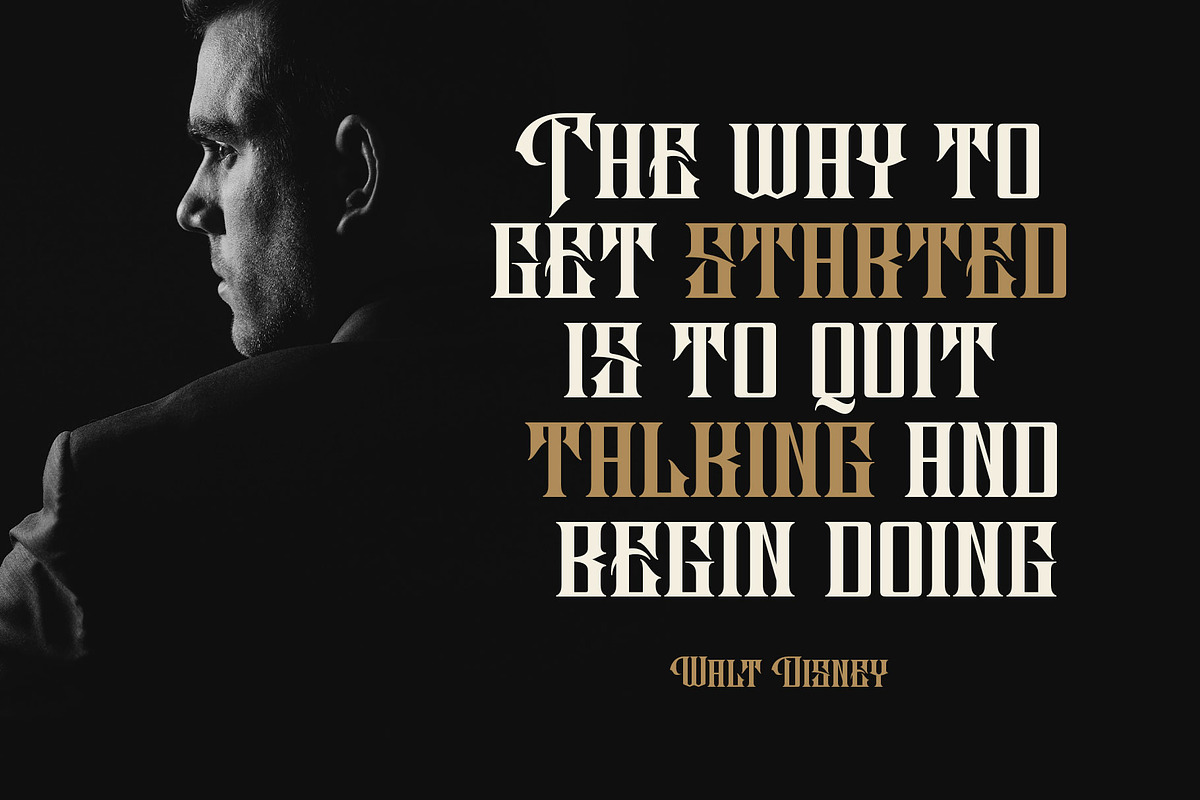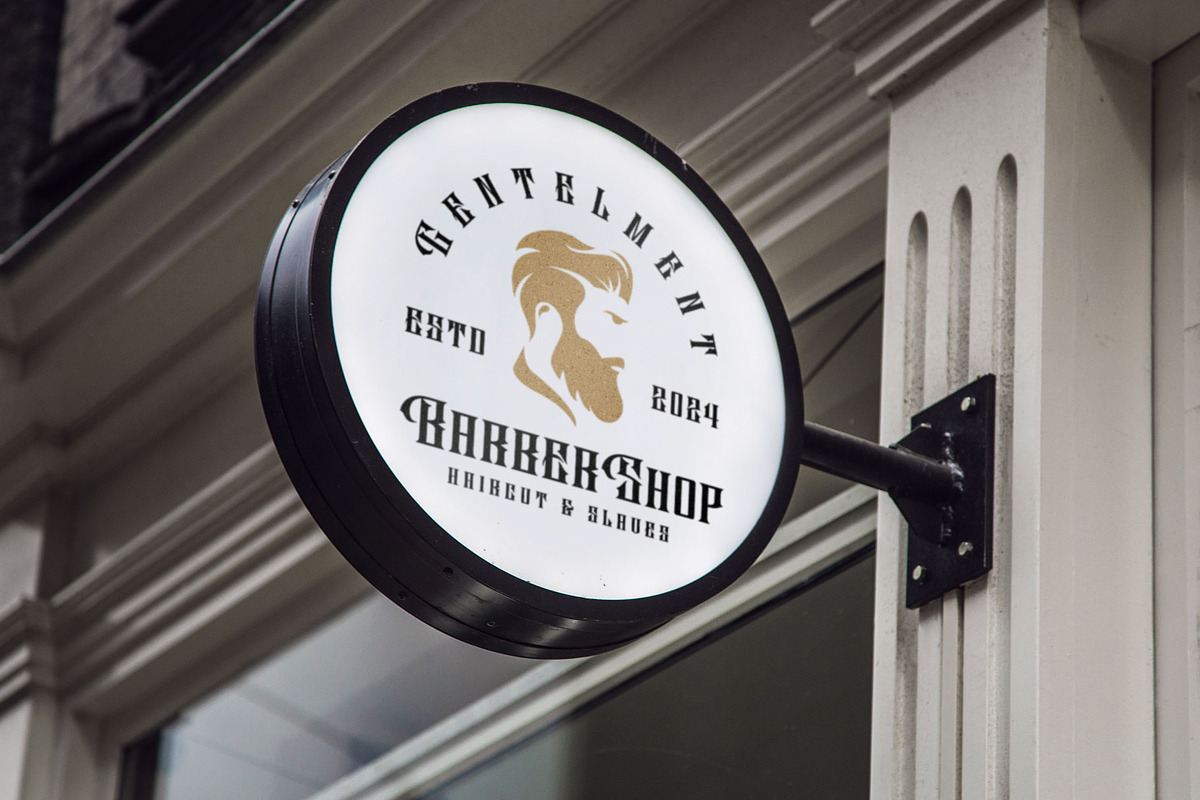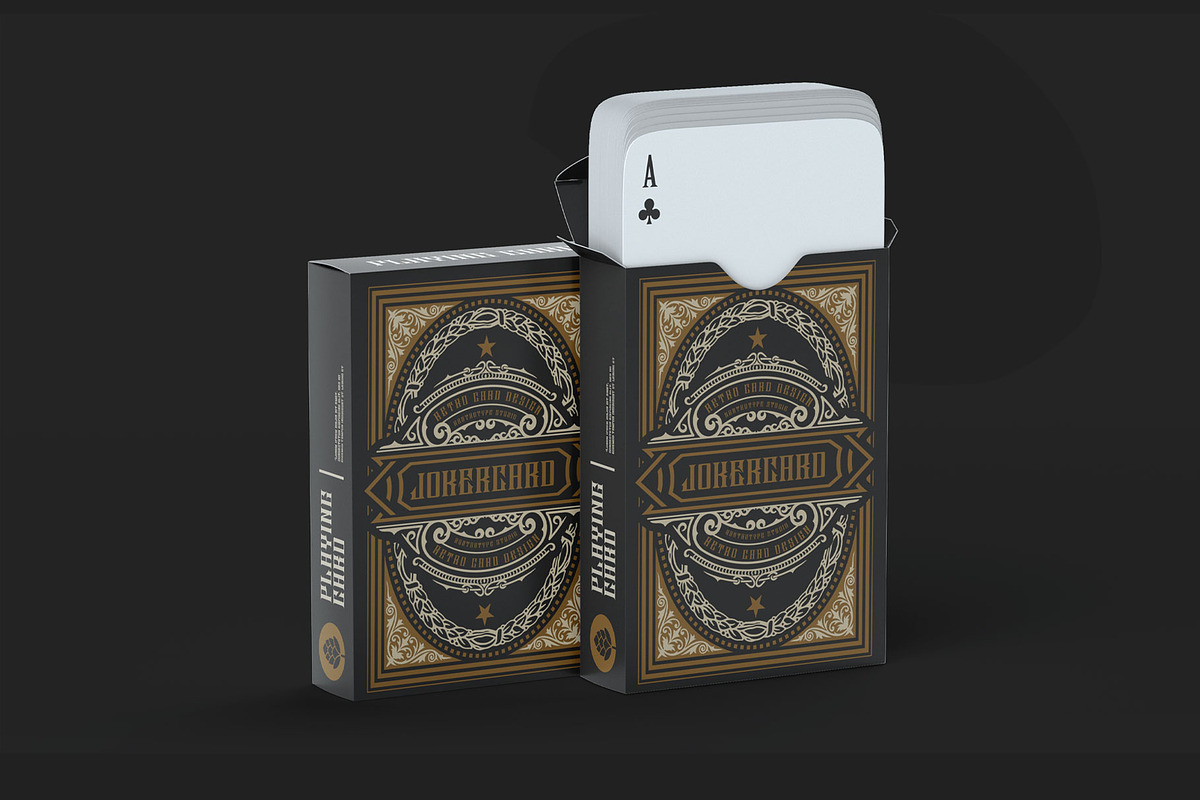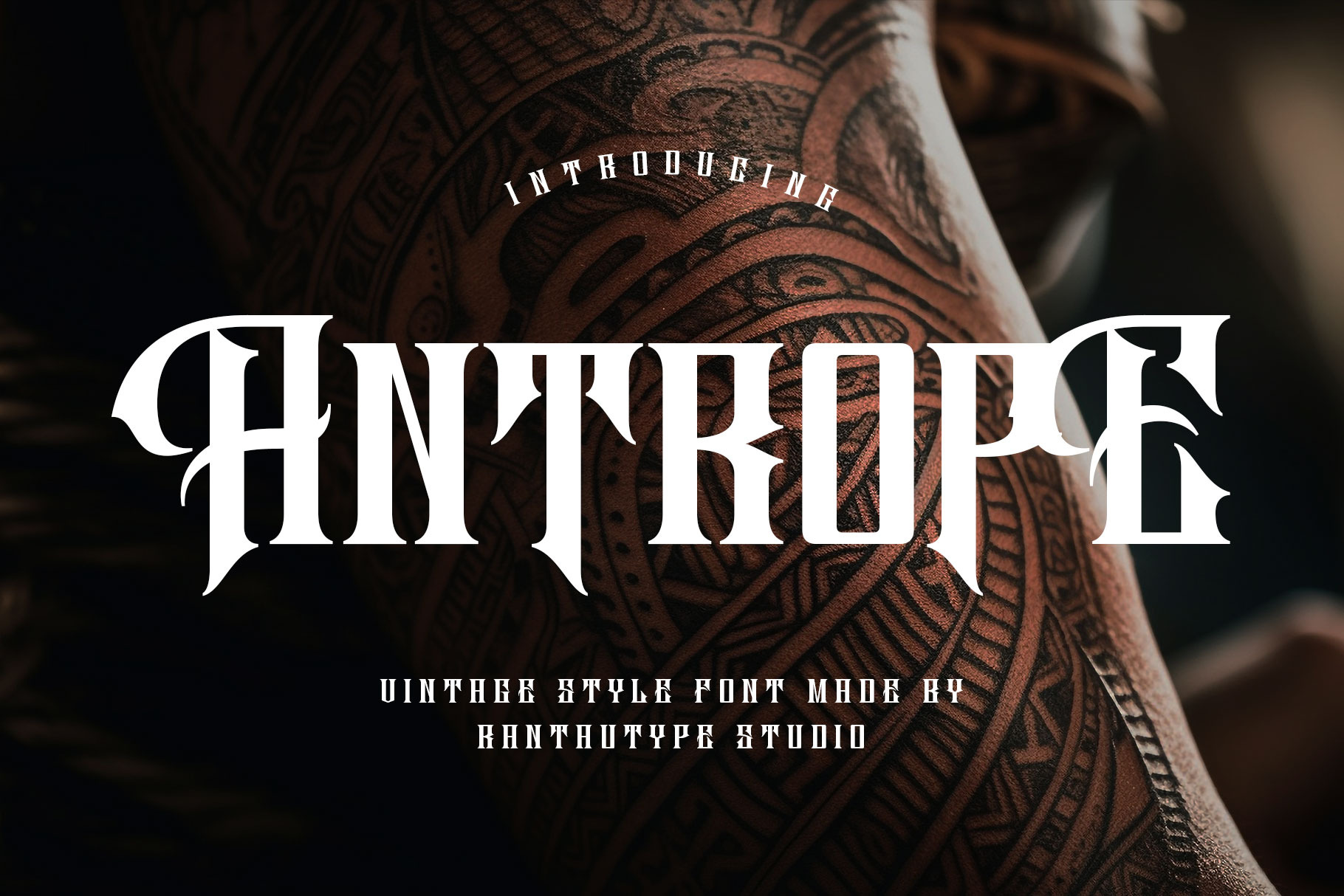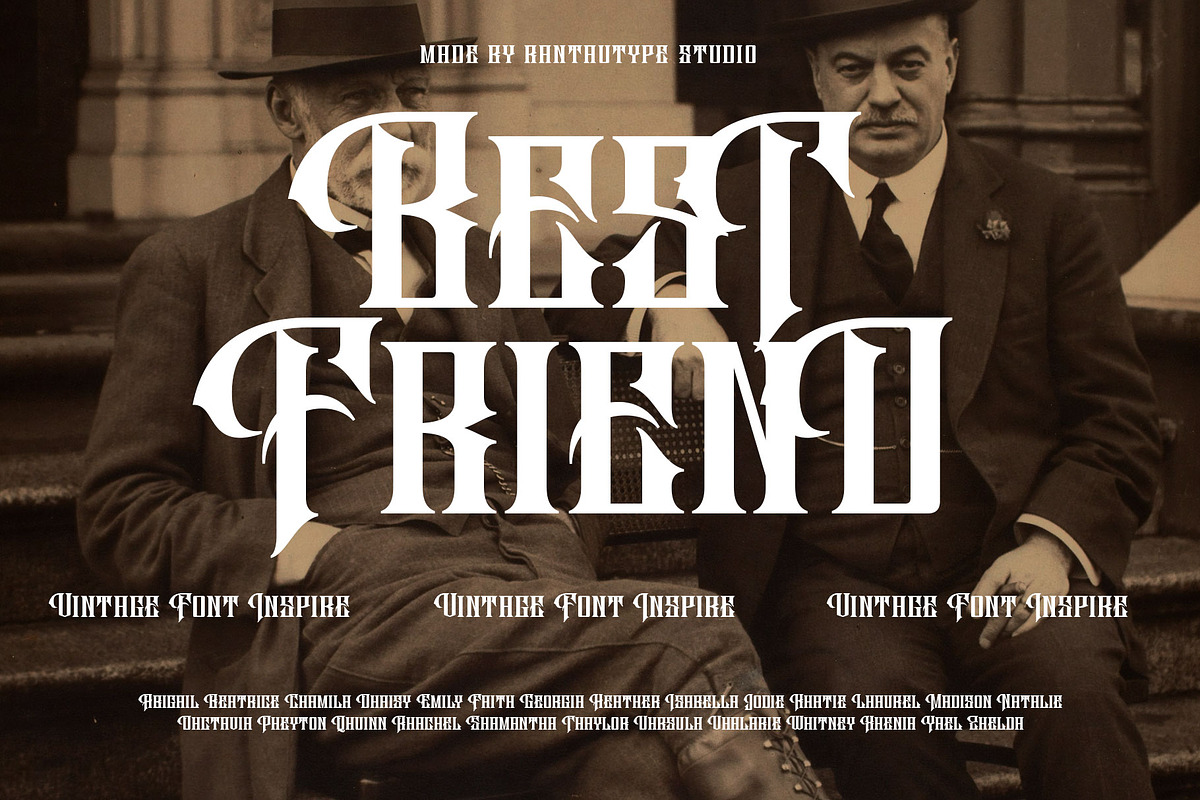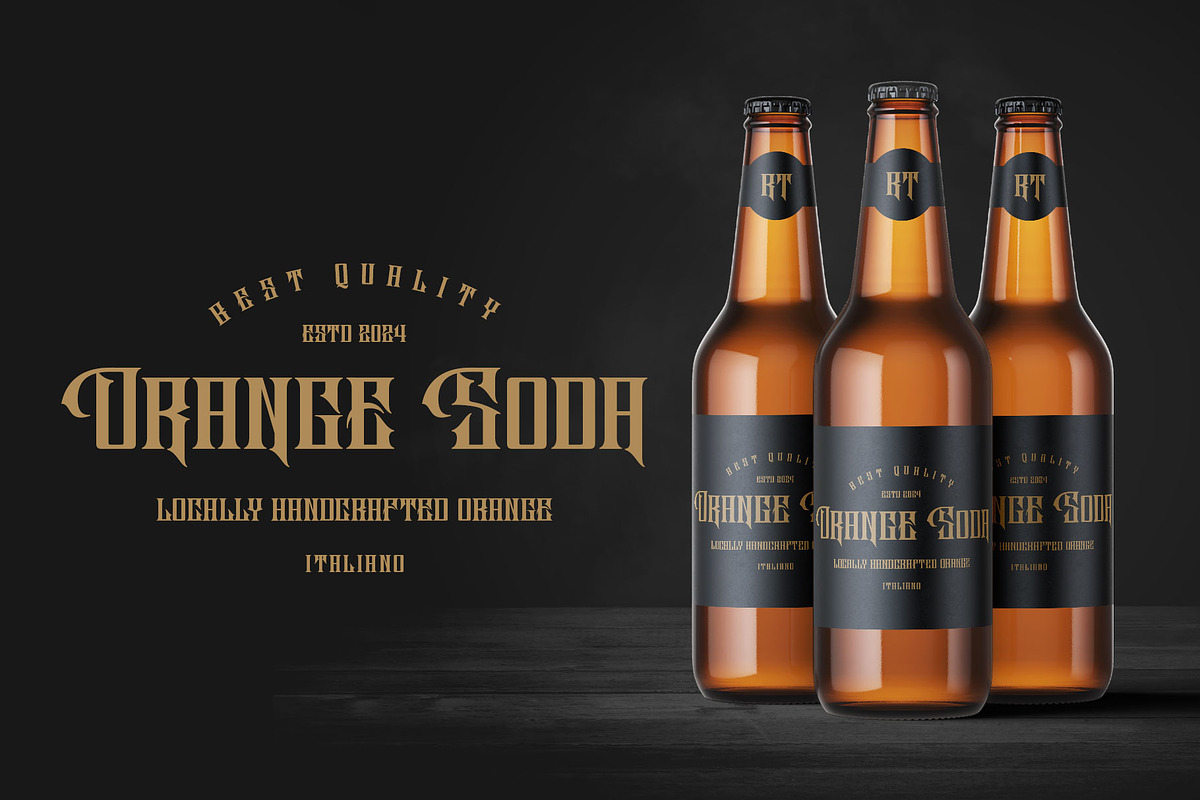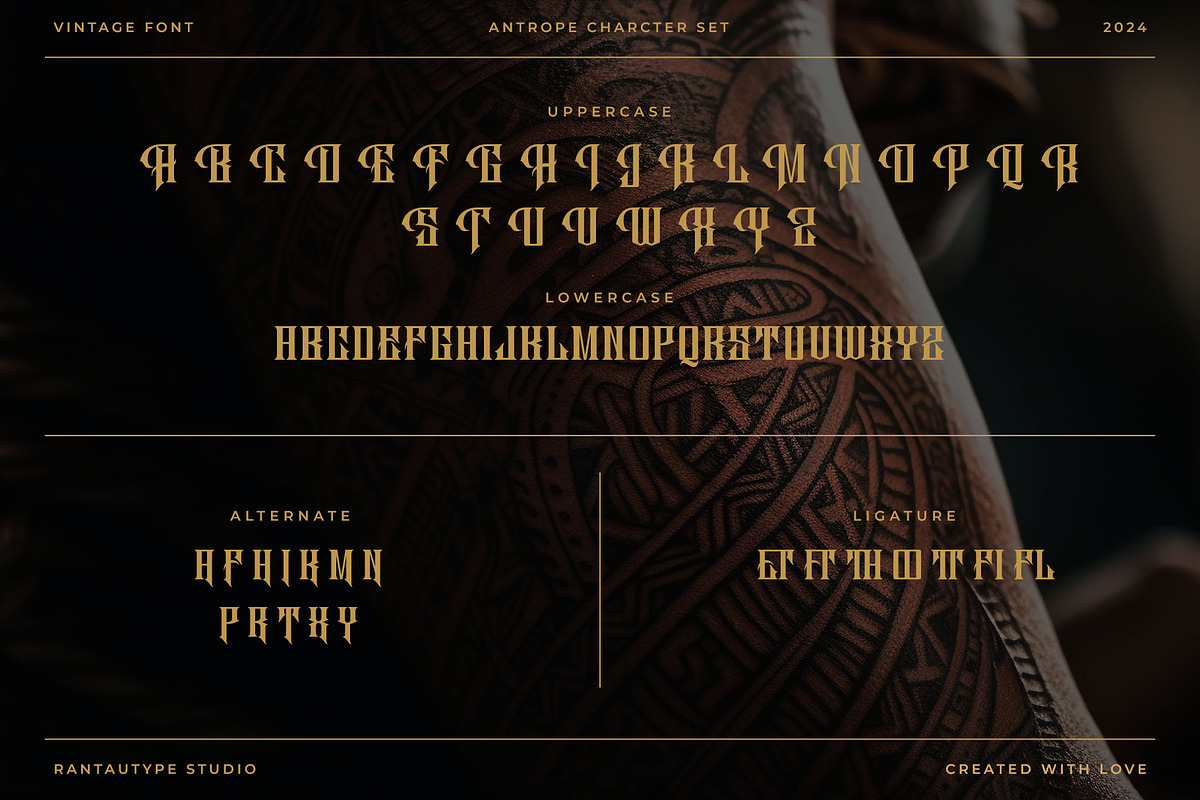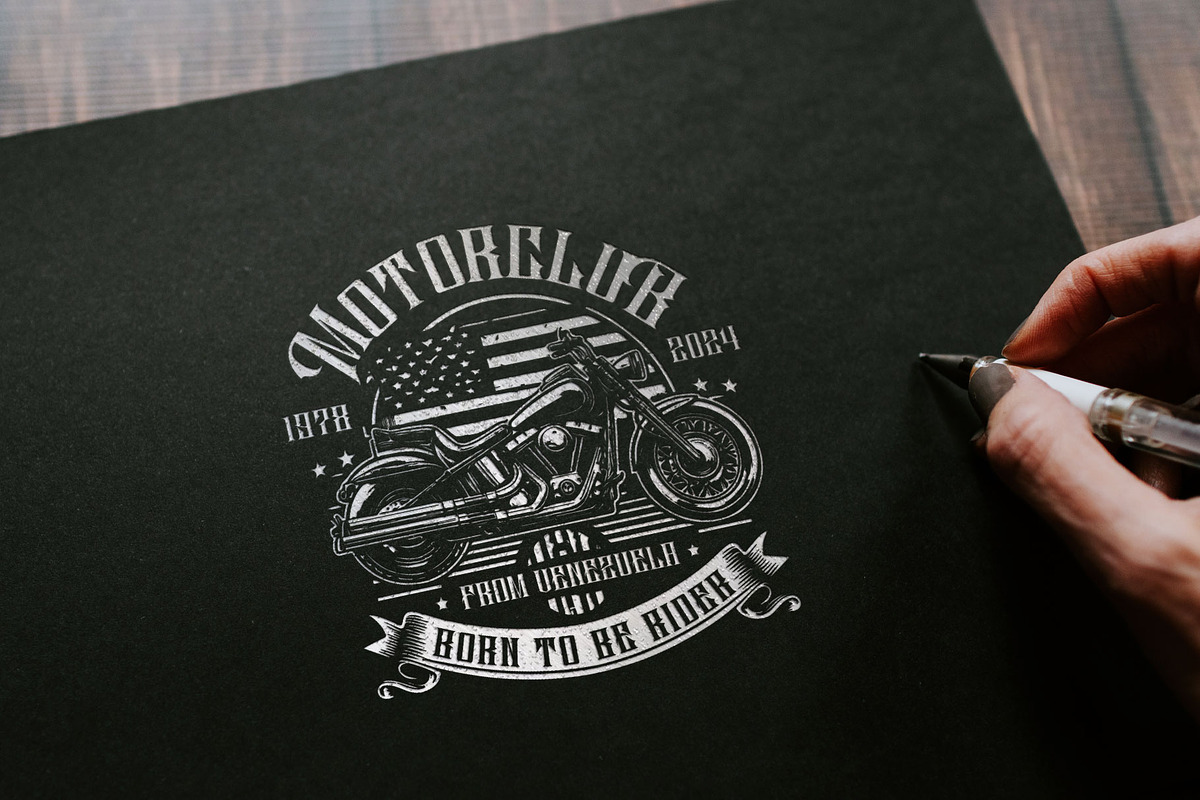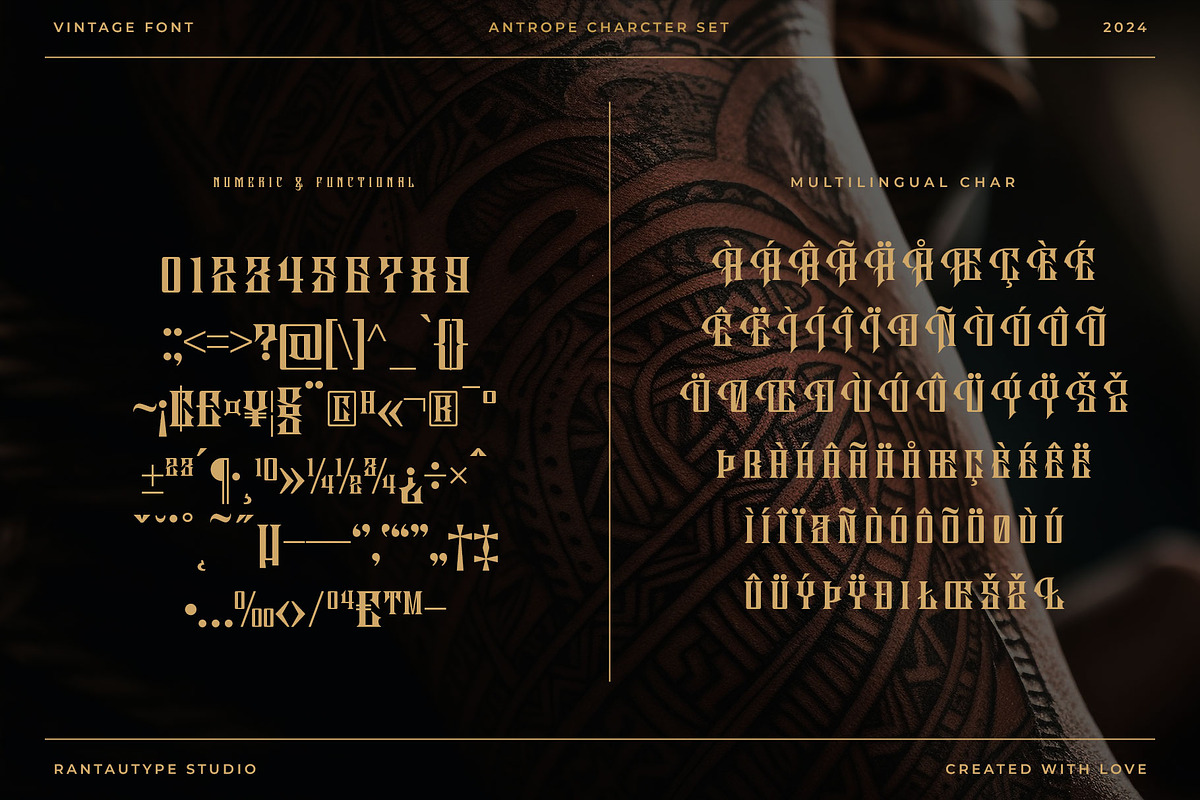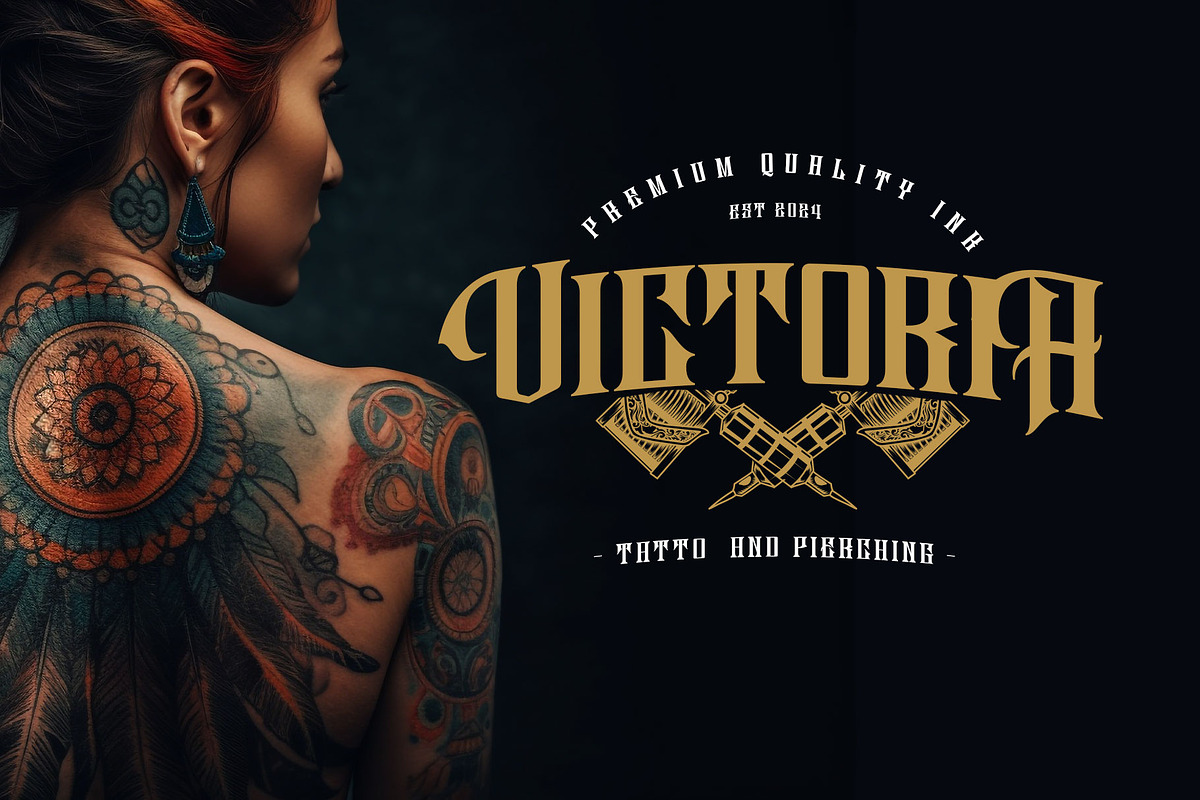
Antrope A Vintage Font
Antrope is vintage font inspire by culture of tatto and fantasy visual design. Antrope bring of authentic of gothic style to make visual design stand out.
Antrope is a perfectly choice for any creative endeavor, chic, lifestyle design such as logos, advertisements, stationery, branding project, display and magazine, invitation, corporate brand, product design, label, business project and many other project with vintage or gothic touch.
- Standart Glyphs
- Alternate and Ligature